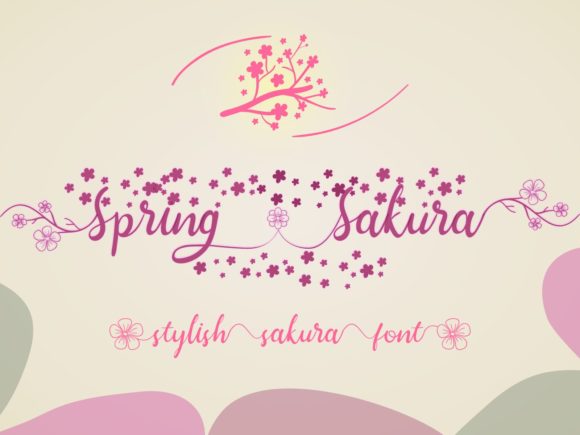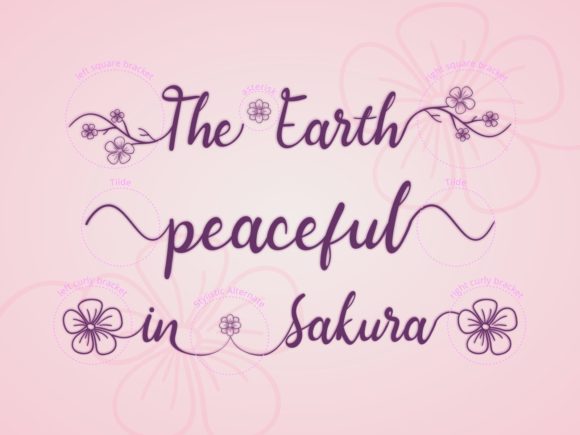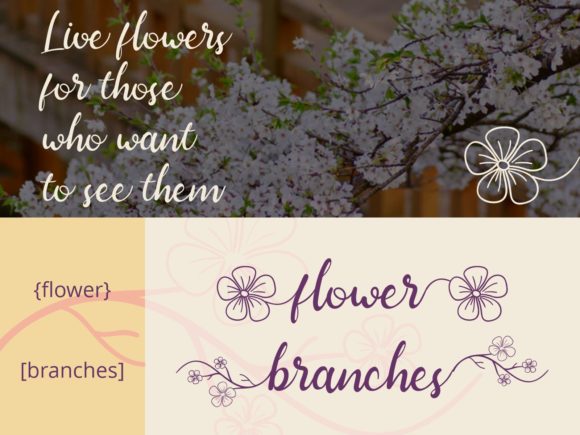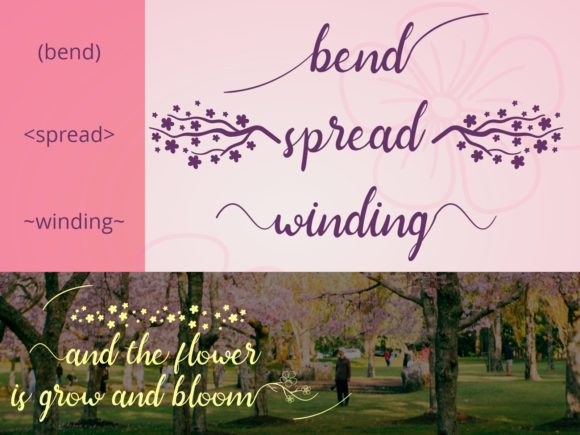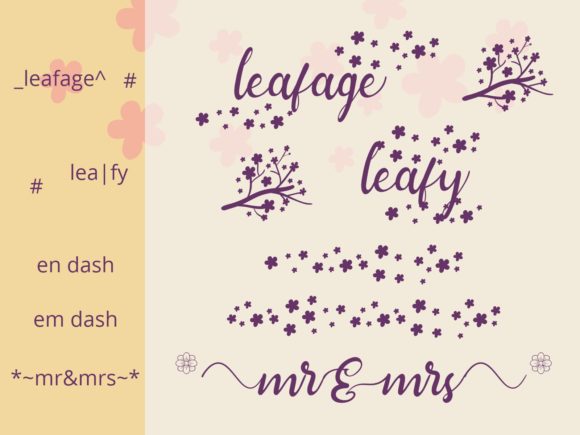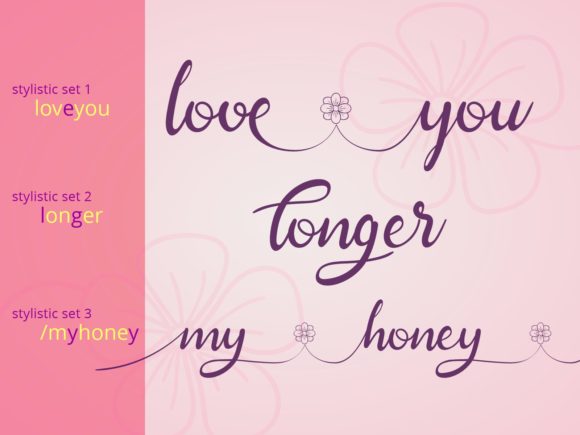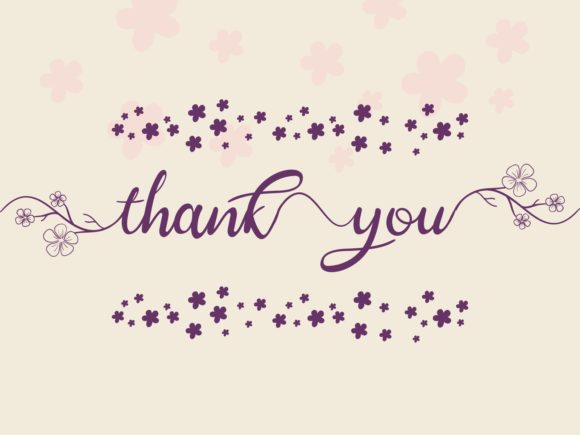
Spring Sakura Font
About Spring Sakura Font
Spring Sakura is a stylish font with gorgeous cherry blossom decorations. You can create beautiful calligraphy designs with this elegant and unique font. It looks stunning on wedding invitations, thank you cards, quotes, greeting cards, logos, business cards and every other design which needs a handwritten touch.